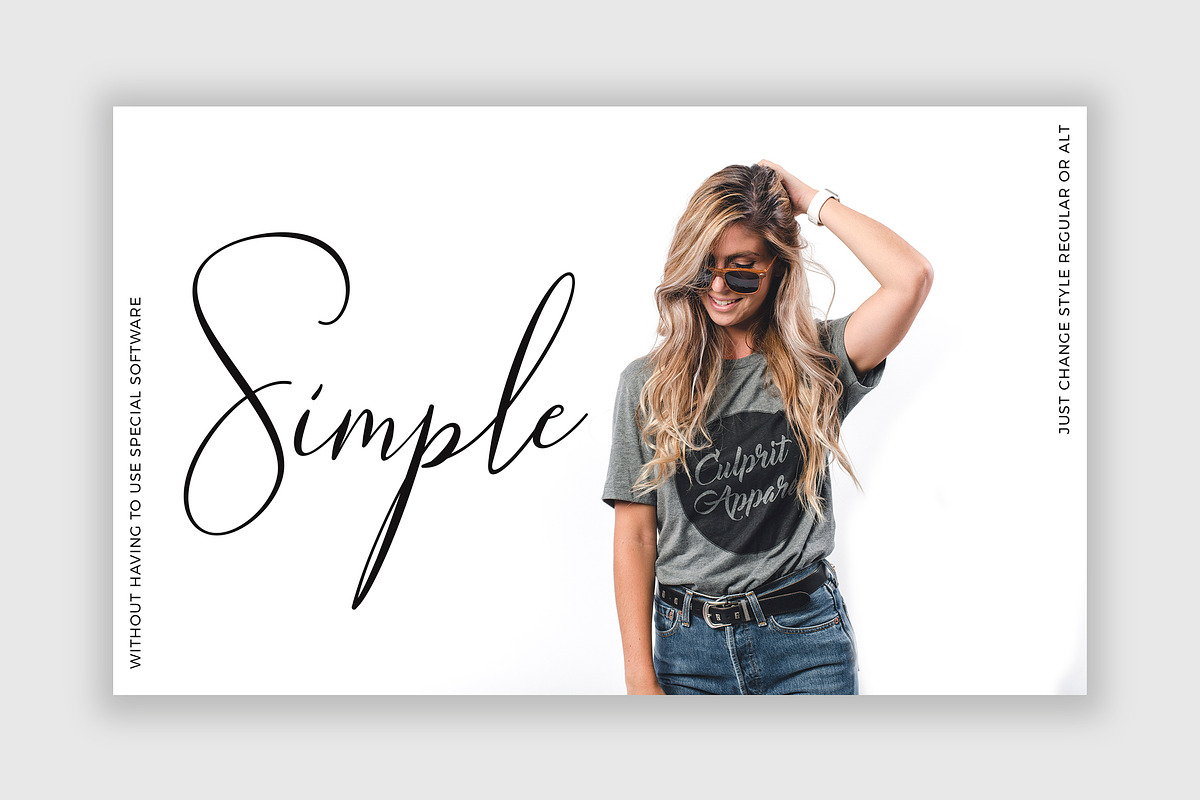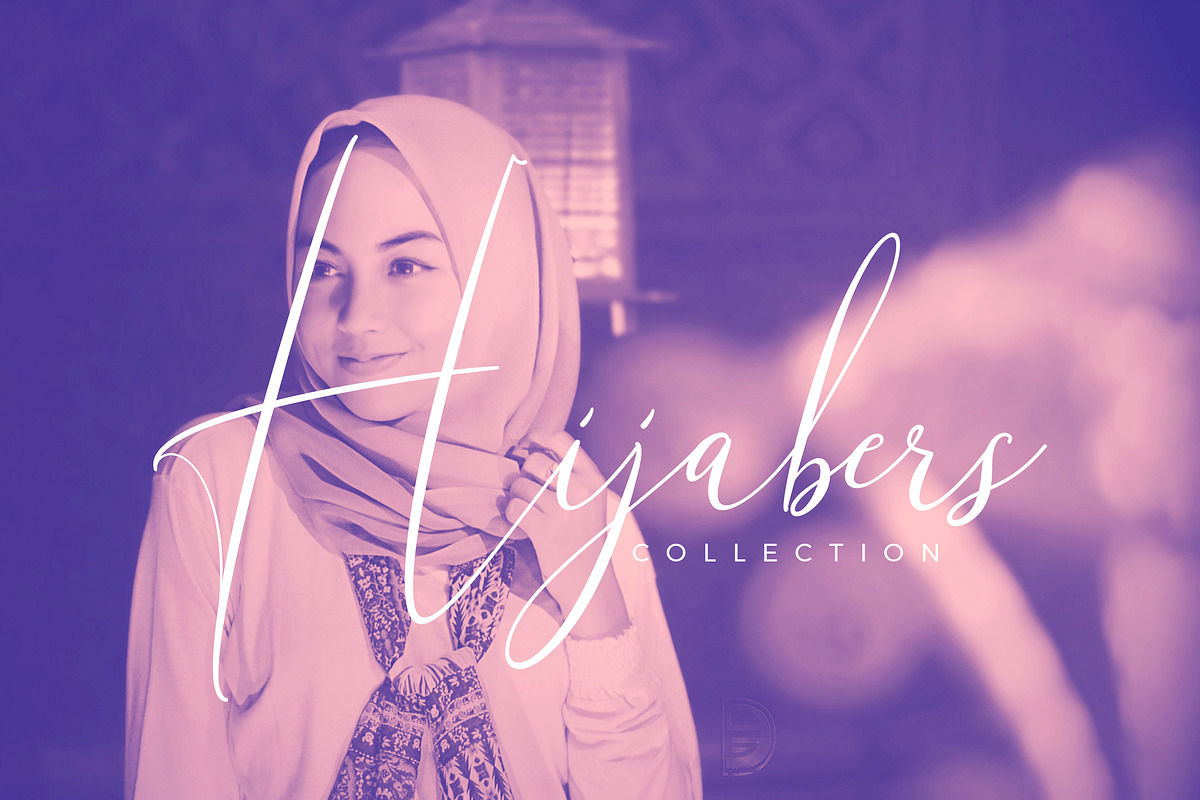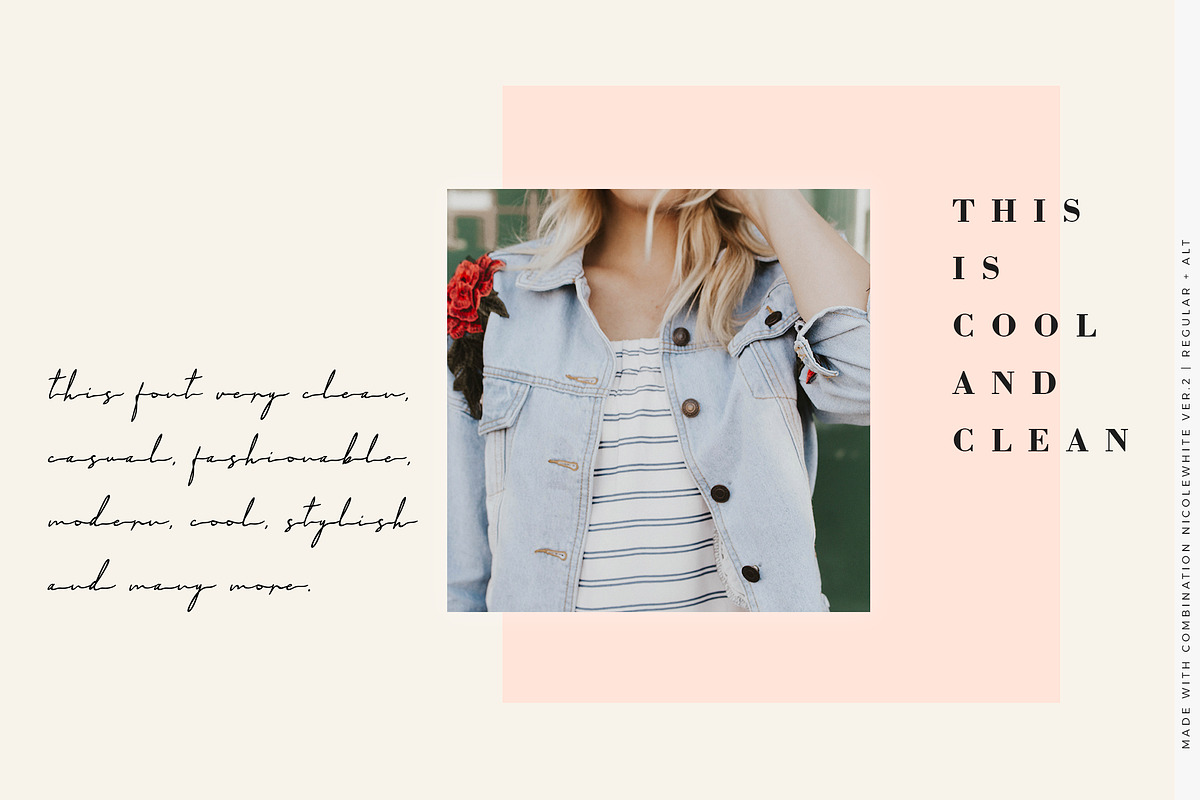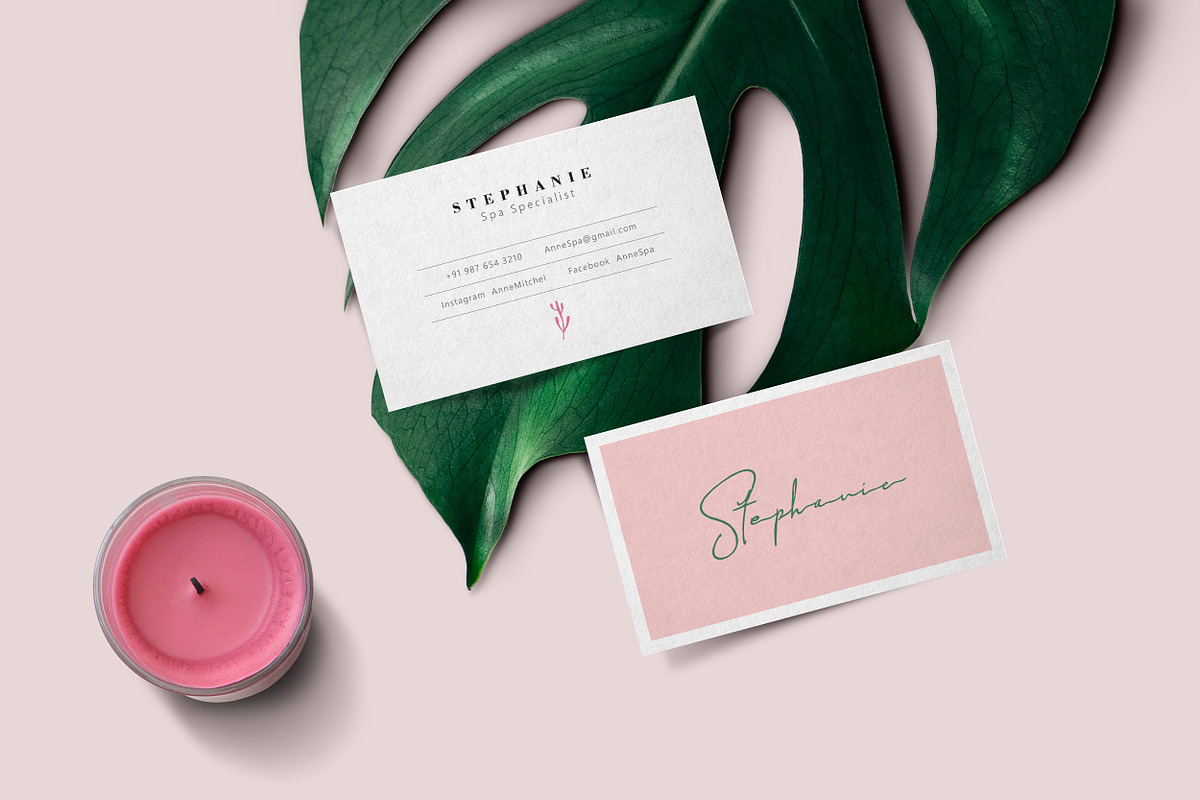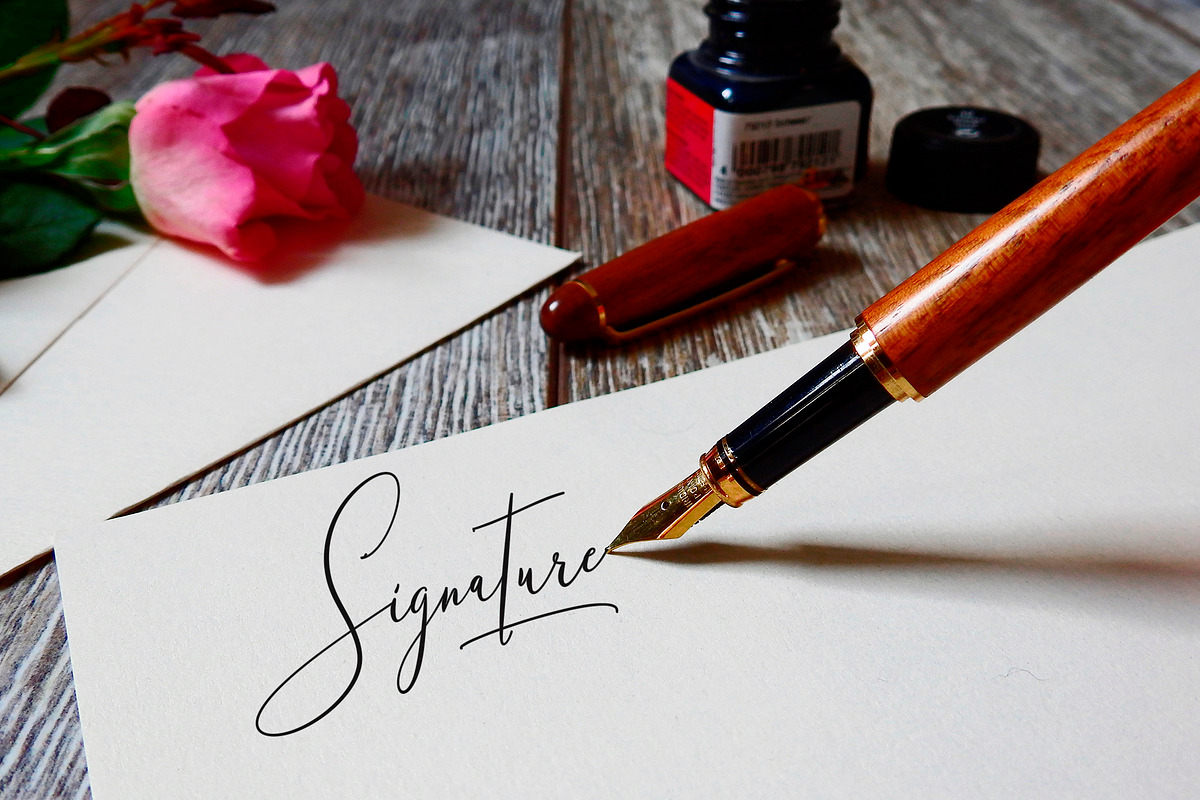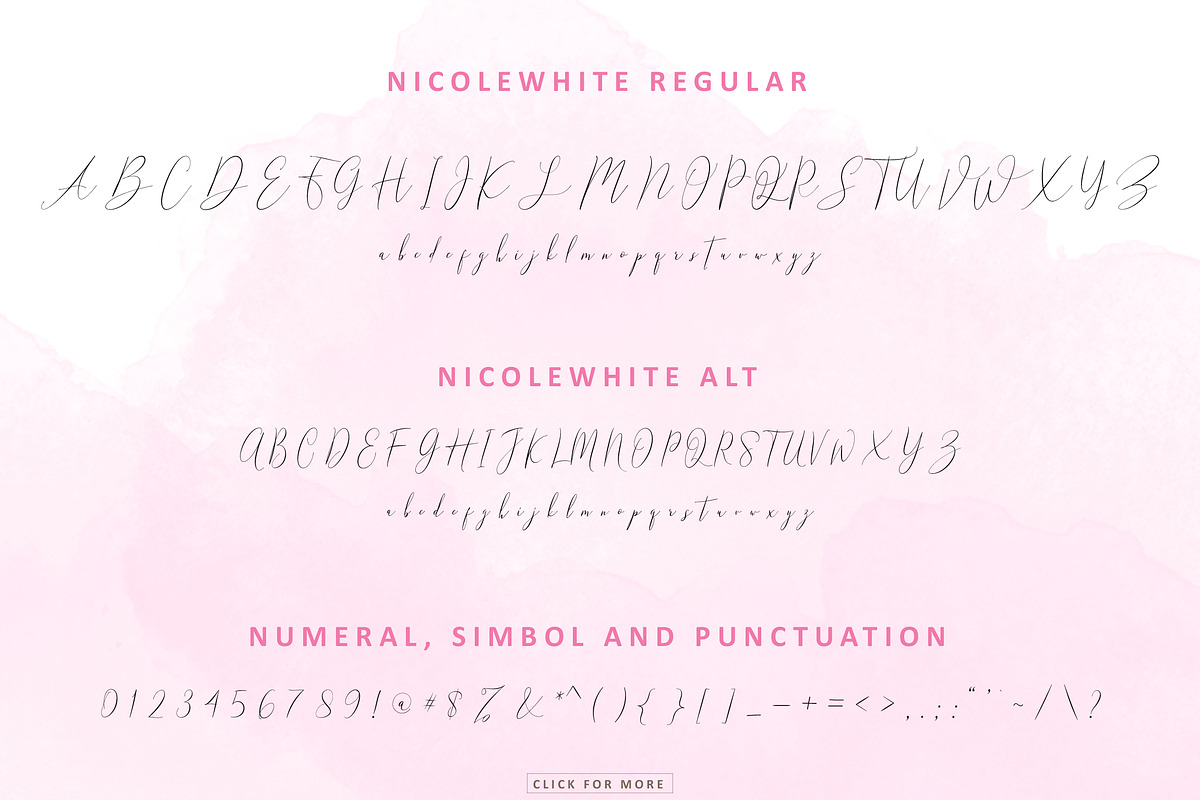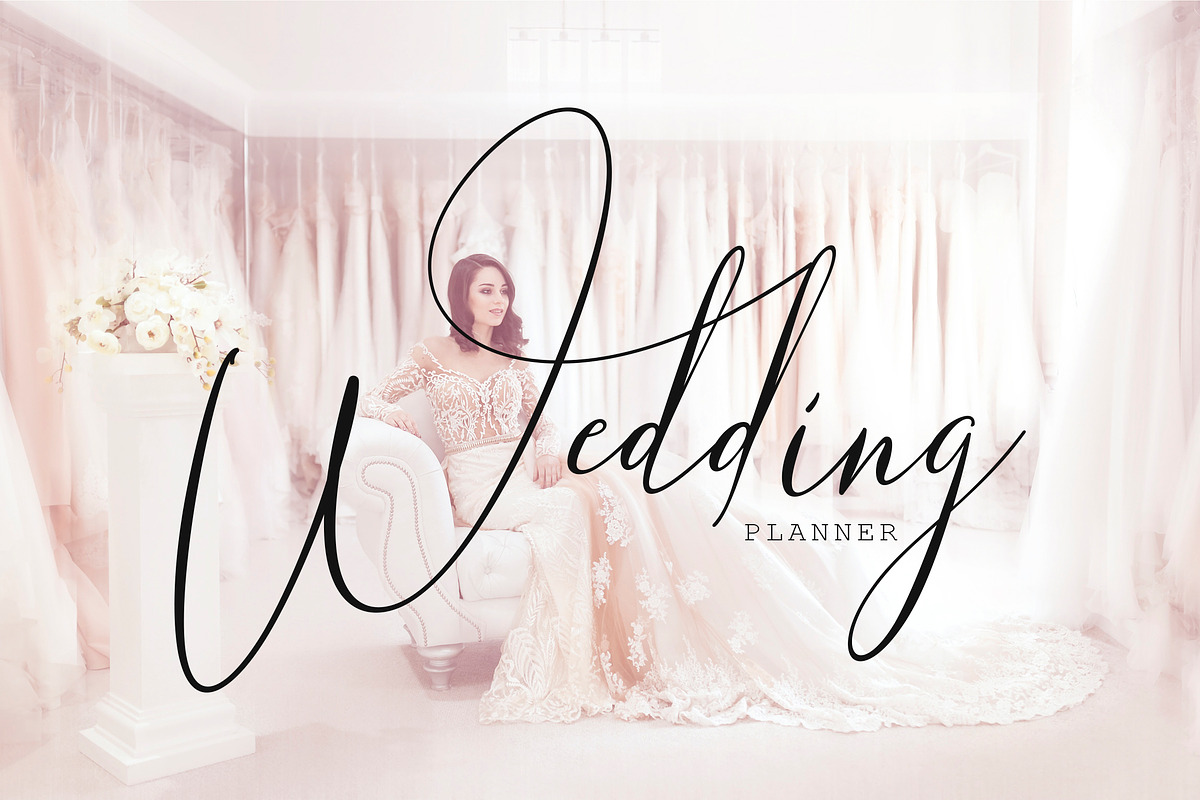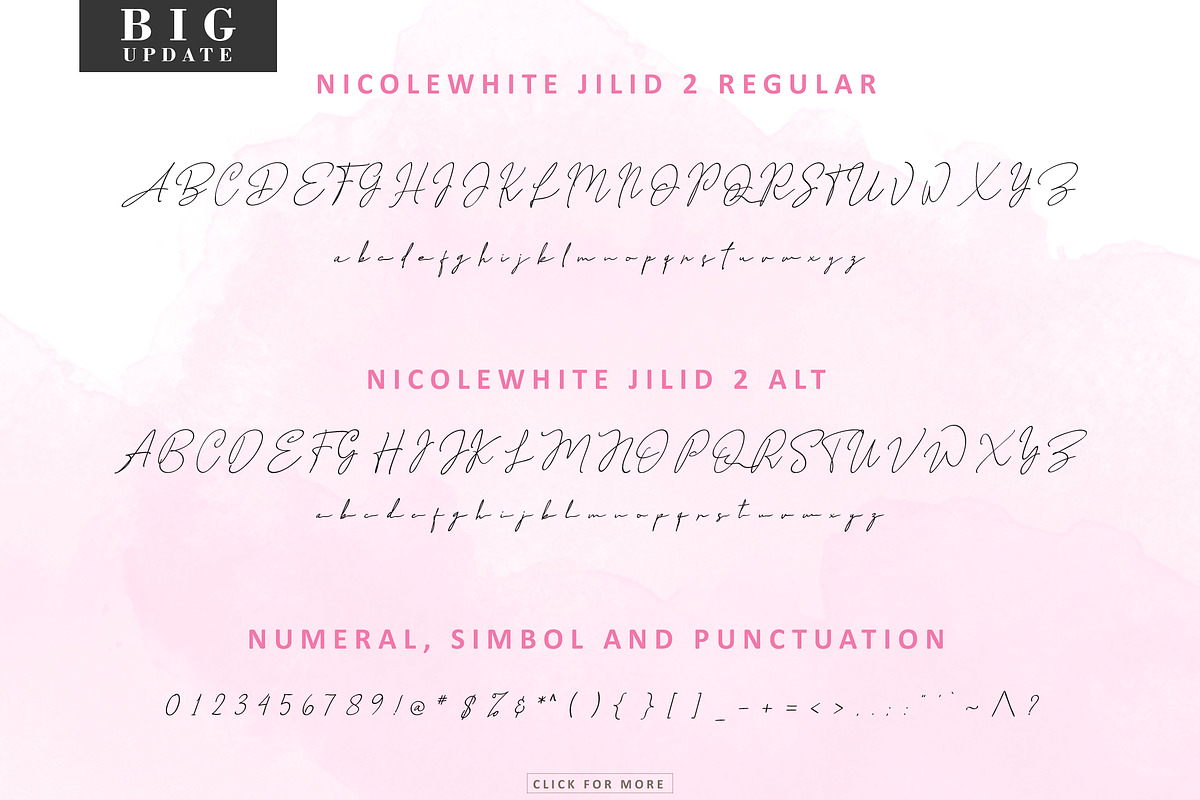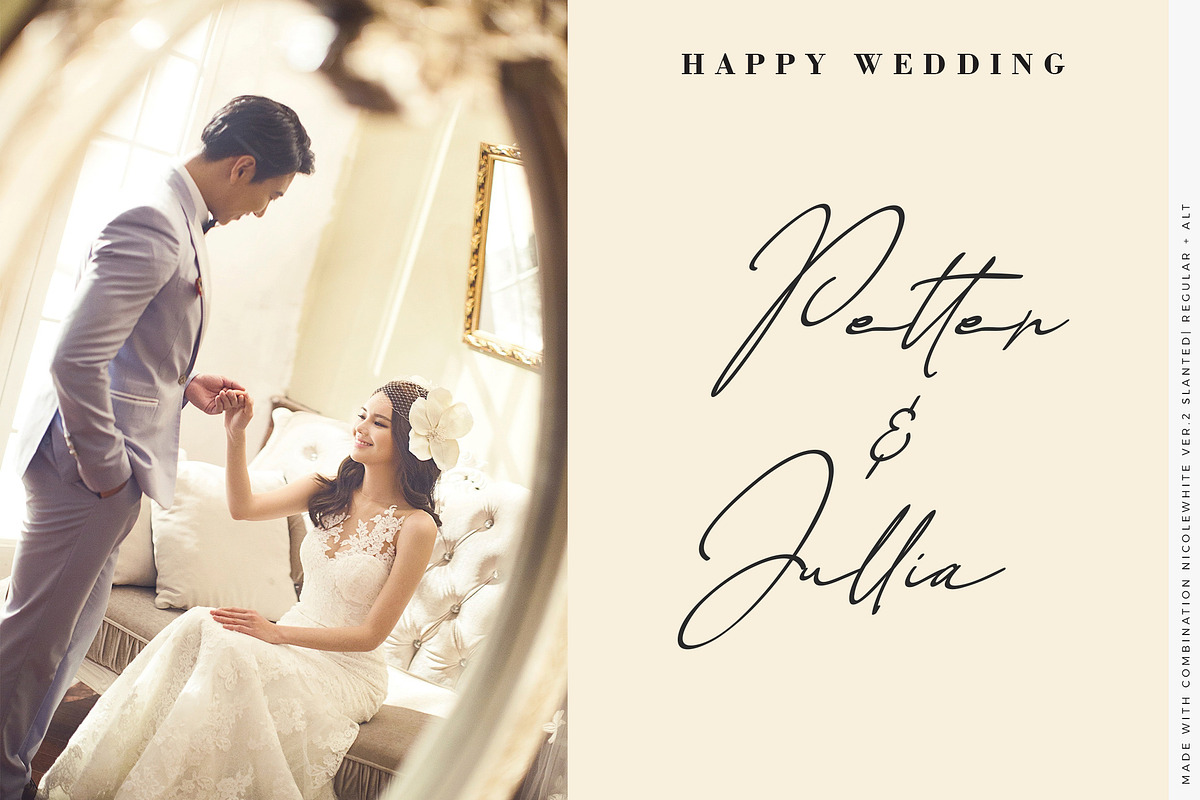
NicoleWhite font is made with a very natural writing techniques that look beautiful and elegant, this font is very suitable to be used to brand a product because if we write a brand name will look like our company signature. this is perfect for bloggers, trademarks, magazines, fashion, wedding invitations, greeting cards and much more
NicoleWhite fonts do not require special software like other fonts, because you can change the style just by changing the regular font type or alt in the font menu in your software.
NicoleWhite fonts has 8 different font types and 2 alphabetic type swashes " A-Z and a-z " this is perfect if used individually or in combination with others, this font also has a lot of ligature and will automatically produce a very natural writing as we write it.